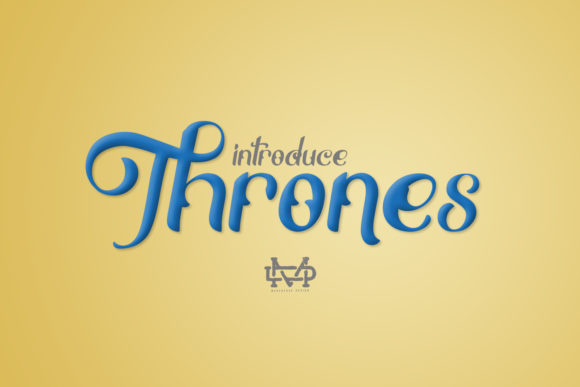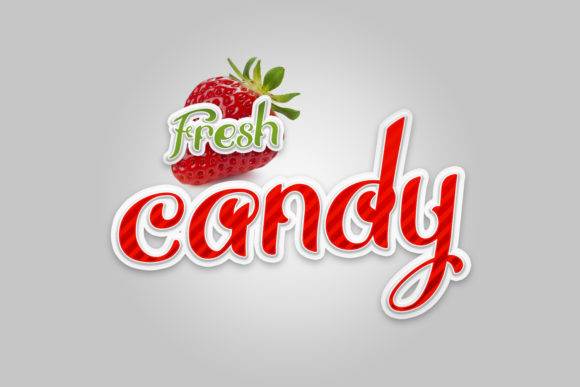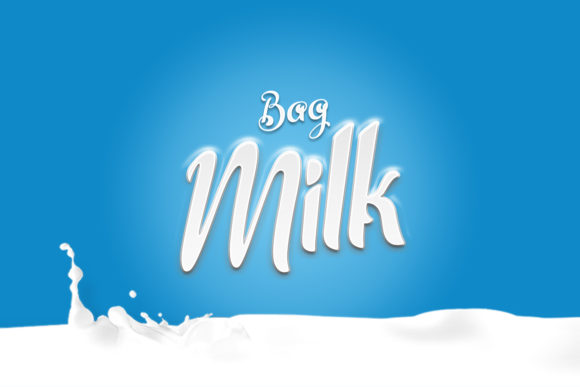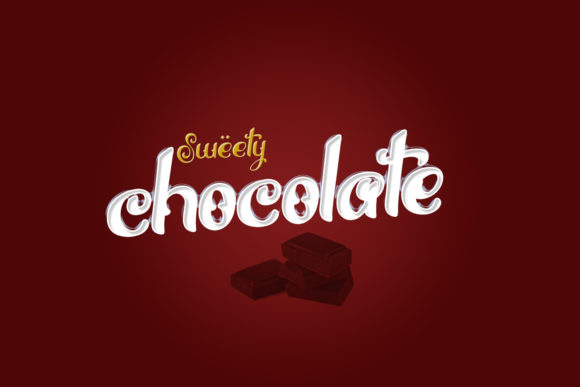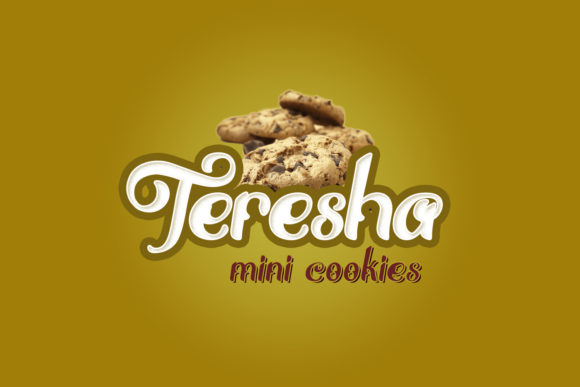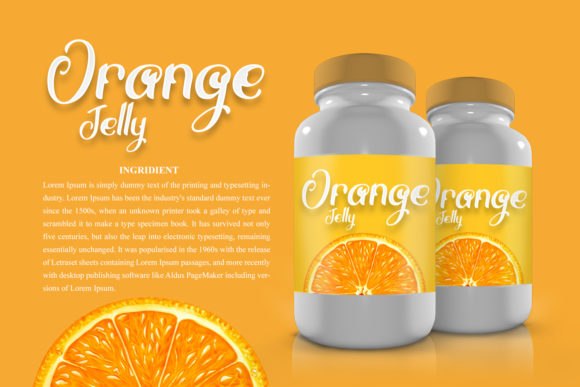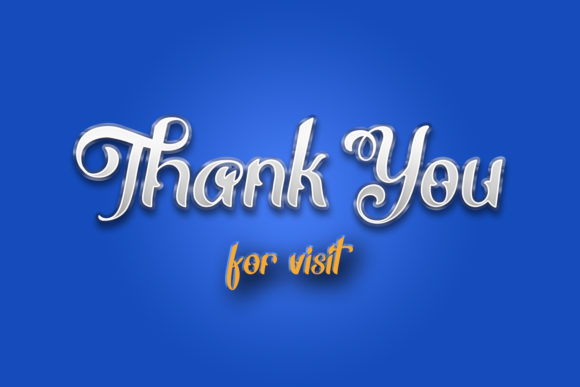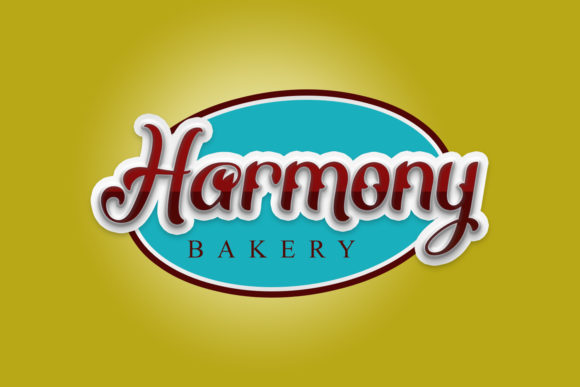
HomeScript FontsThrones Font Script Fonts Thrones Font FacebookXPinterestWhatsApp Thrones Font Poster 2 Thrones Font Poster 3 Thrones Font Poster 4 Thrones Font Poster 5 Thrones Font Poster 6 Thrones Font Poster 7 Thrones Font Poster 8 About Thrones Font Thrones is a fascinating modern script font with a unique style. Fall in love with its playful look & feel! DOWNLOAD ON CREATIVE FABRICAThis font is sold and delivered by Creative Fabrica. Font Canyon may earn a commission if you buy through this link. People also explored Vintage Font Hello Berlin Font Dustyland Script Font Walking Dream Font Street Letters Font Friendly Notes Font Ladies Font Alexandra Font Breakfast Font 317 0 TagsThrones Font Previous articleRegular Queen FontNext articleQuaked Font LEAVE A REPLY Cancel reply Comment: Please enter your comment! Name:* Please enter your name here Email:* You have entered an incorrect email address! Please enter your email address here Website: Save my name, email, and website in this browser for the next time I comment. Personal Use Free Black Jalal Personal Use Free Read more about this font Sweet Cake Personal Use Free Read more about this font Droid Personal Use Free Read more about this font Aragon Personal Use Free Read more about this font BLOG Exploring Font Trends Shaping Communication in the Digital Era Fonts, like all design elements, are subject to trends. They play a crucial role in communicating a brand's personality,... Free vs Paid Fonts: Why Investing in Premium Fonts Is Worth It How to Install and Use Fonts on Windows, macOS, and Web Projects Transform Your Website: Elevate Your Typography with 7 Best Web Font Generators